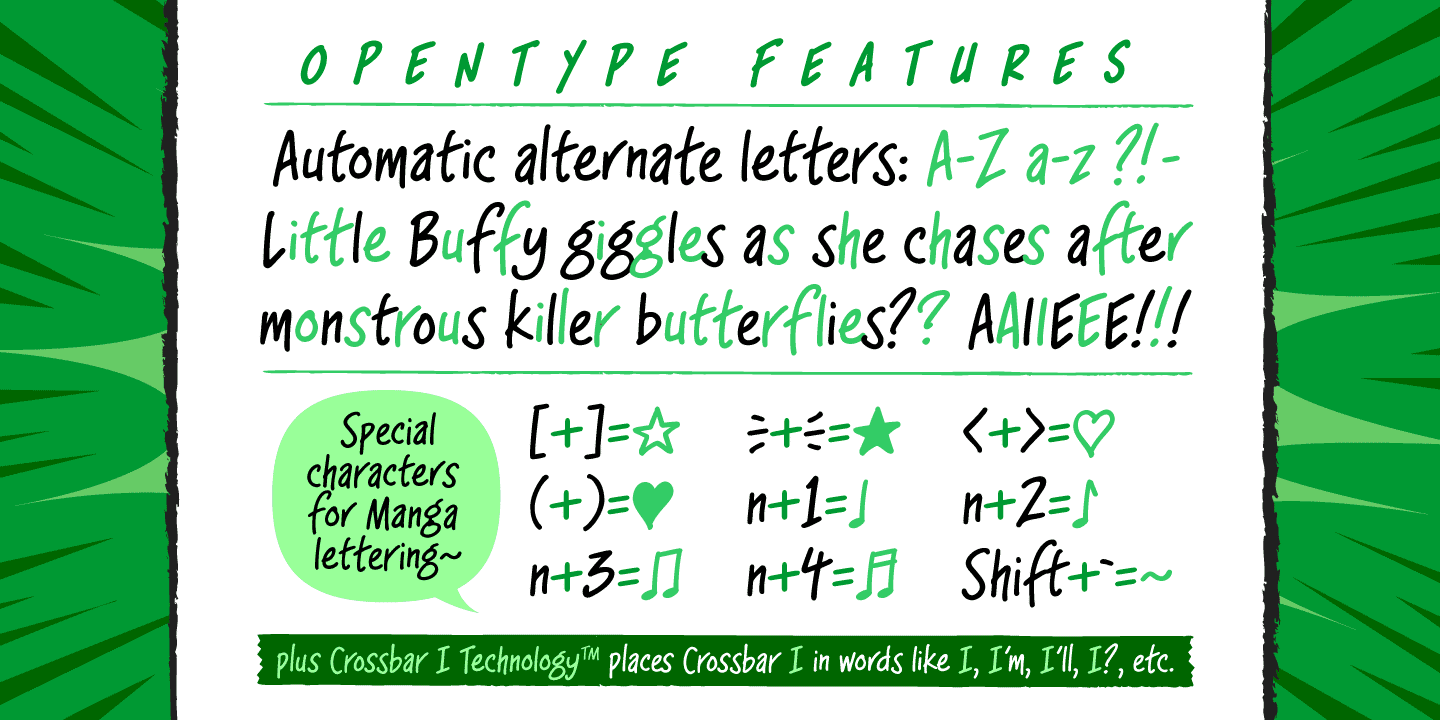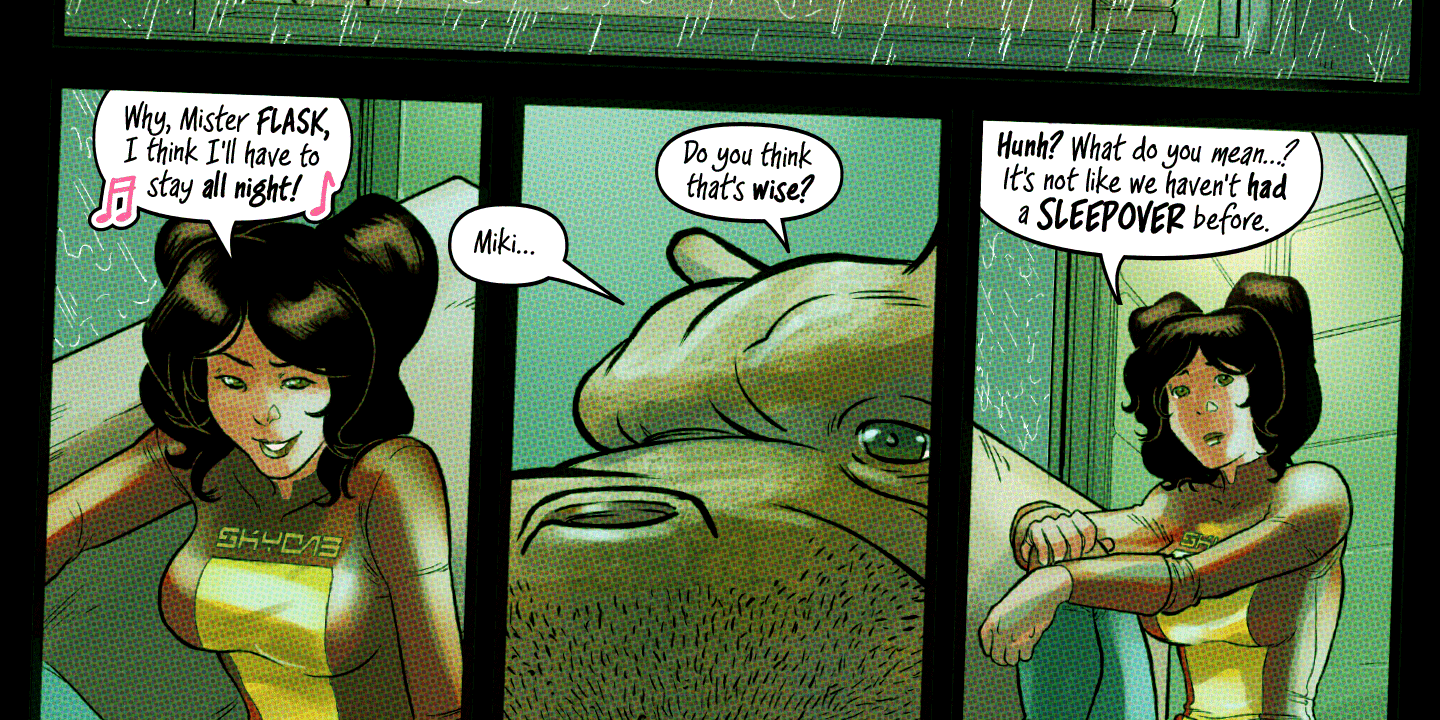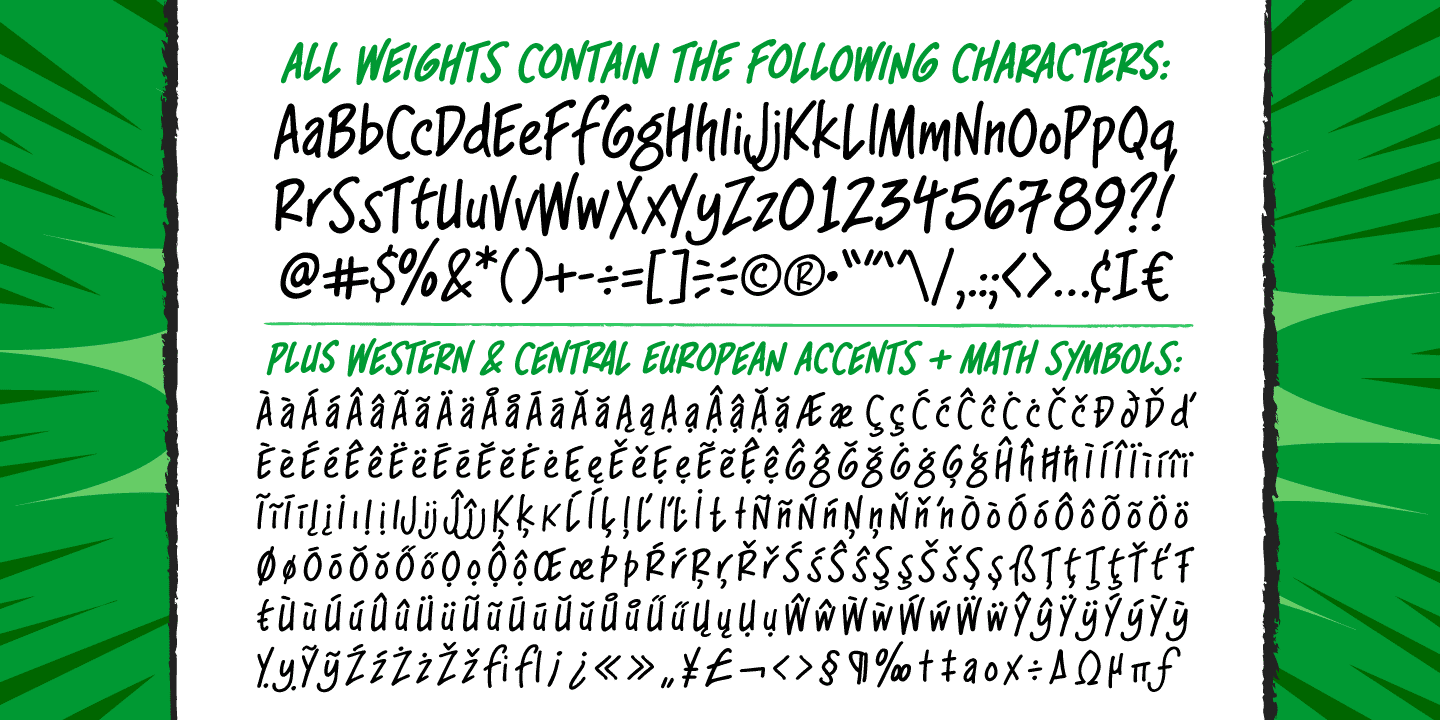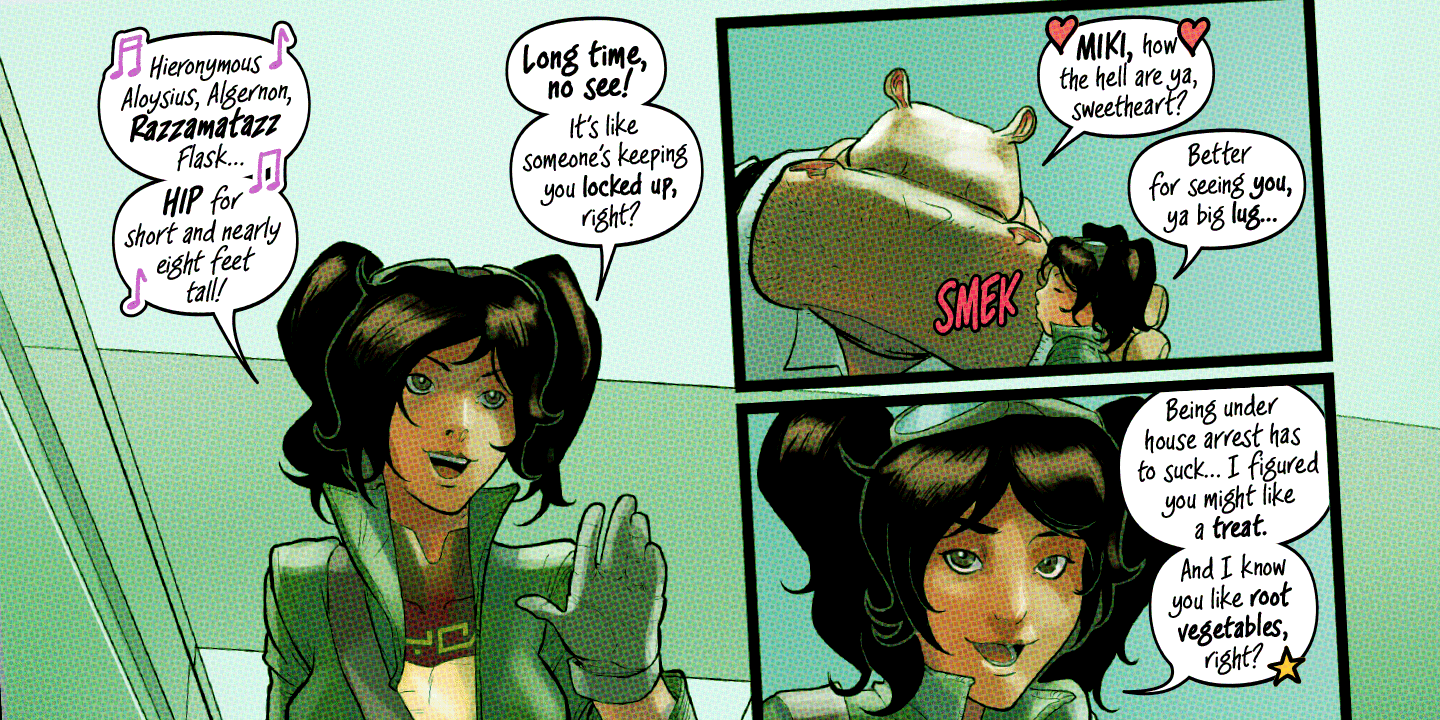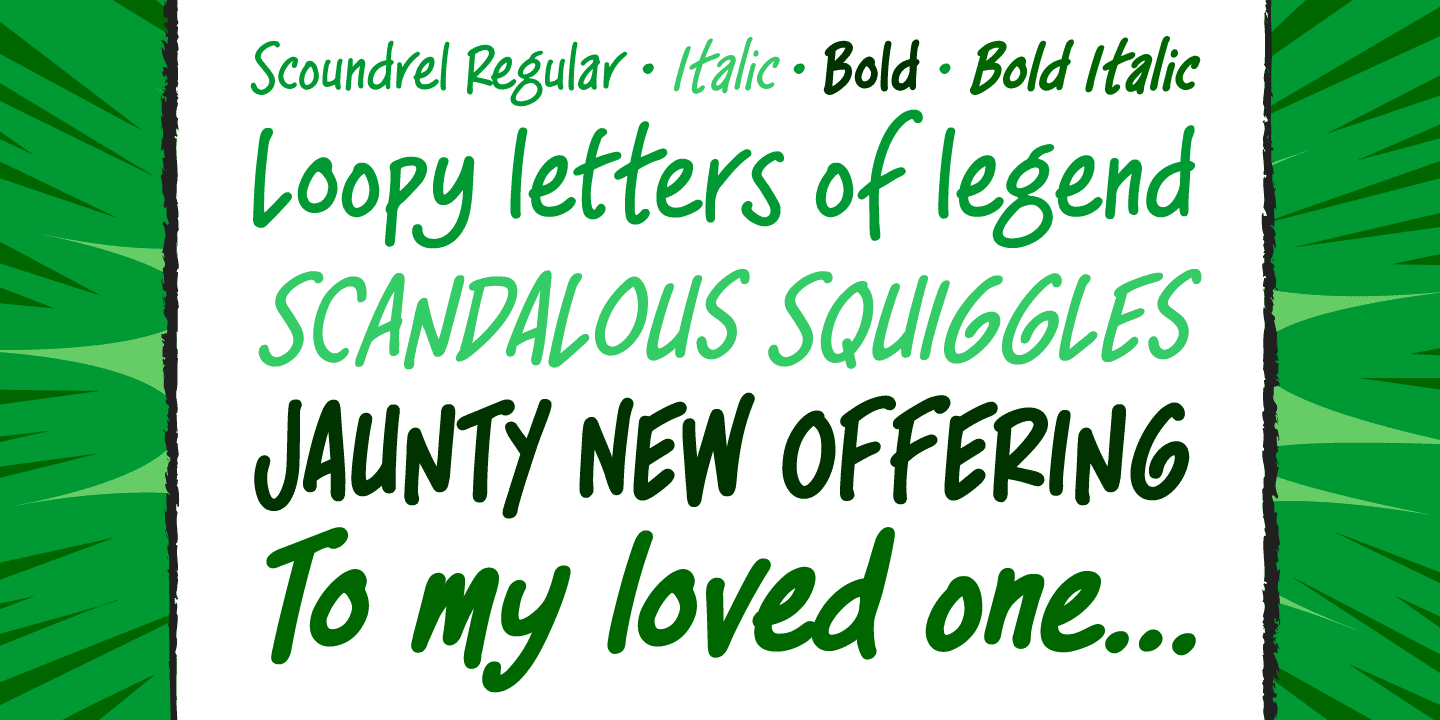
Scoundrel
Font Family by Comicraft Fonts
Leathery and Loopy Letterer of Legend, Richard Starkings has pointed his Apple Pencil at Procreate on his iPad and proceeded to raise the bar on lower case for this scandalous series of squiggles we had to call SCOUNDREL!
Rendered in the style of ShoutOut, this jaunty new Comicraft offering features both upper and lower case and recreates a pen lettering style of which we honestly thought Old Man Starkings was no longer capable! Suitable for jolly journal entries, hand-written notes to loved ones and sundry laundry lists, SCOUNDREL does more than Shout, and it does it quite quietly too!